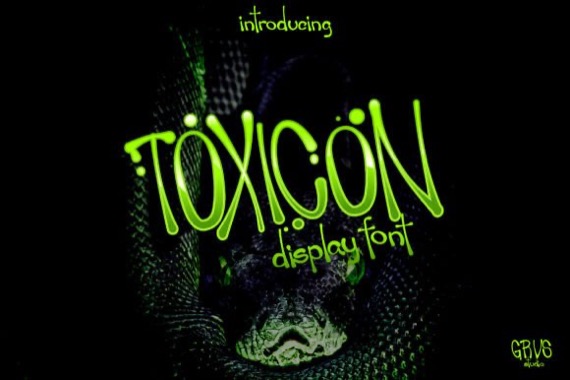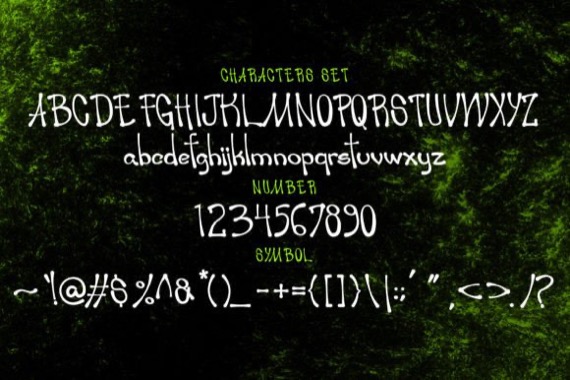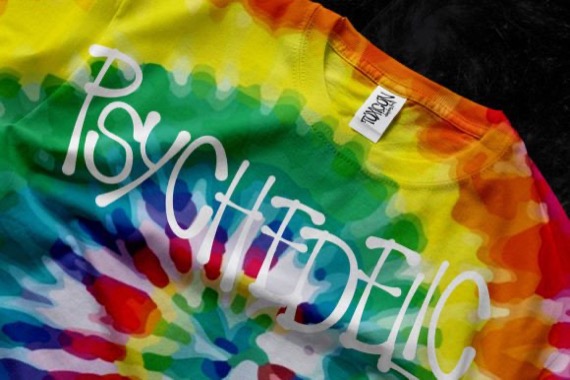
Introducing Toxicon Font from Febryan.Satria1, it is our new item that is suitable for your team logo, or community logo with a Psychedelix theme.
Great for Logo, Sticker, Jersey, Invitation Card, Brochures, etc.
Toxicon Display Font